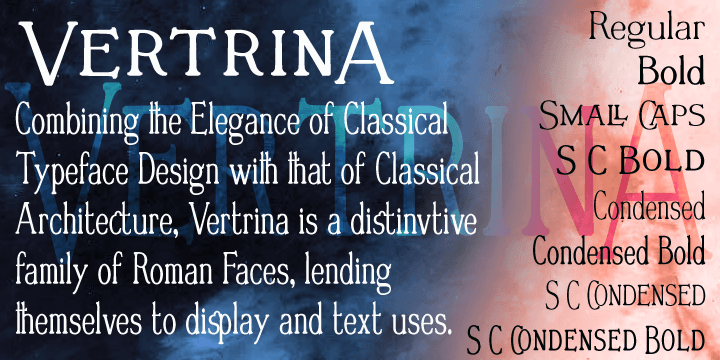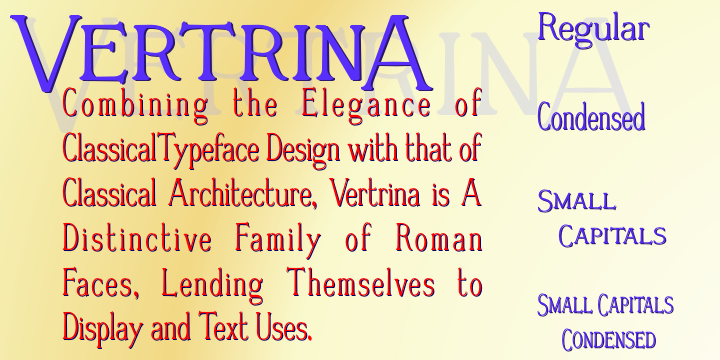
Vertrina is a historical font family. This typeface has eight styles and was published by Greater Albion Typefounders.
Vertrina marries four virtues: elegance, simplicity, character and usefulness. It started as an idea to combine two things. Those two things are the elegance of classical Roman typefaces and of classical Roman architecture. The result is that rarest of all things - an truly new face that is elegant yet characterful but not so obtrusive as to be restricted to display work. All the faces uprights mirror the elegant taper of Roman columns, as used in the most simple and elegant form of Roman architecture. The serifs are a subtle shape that mirrors the pediments and corbels of that same order of architecture. Vertrina is a family of eight faces, four upper and lower case faces, suitable for the elegant setting out of text, and four small capitals faces ideal for headings and titles. Youíll find regular and bold weights and normal and condensed width, as well as a range of Opentype ligatures. All faces are offered individually and in family groups. Bring some simple elegance to your work.